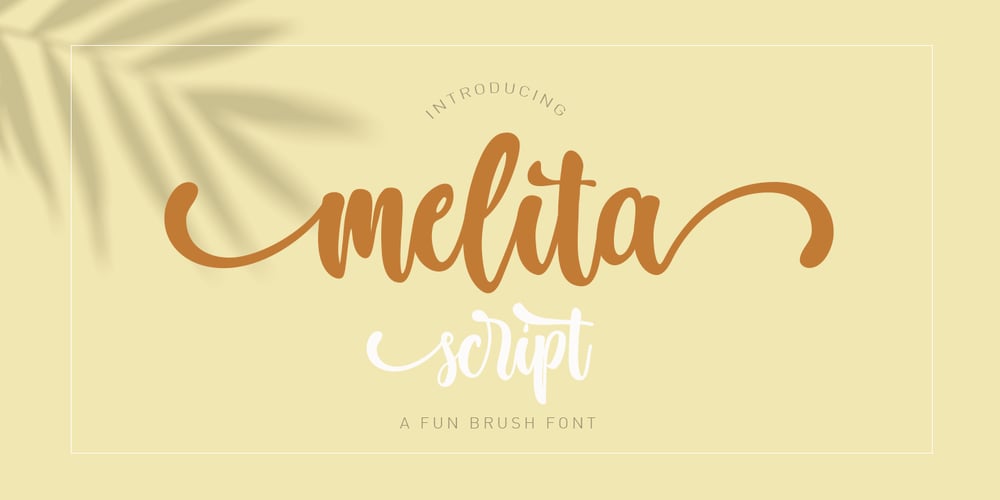
Melita Script Font Family was designed by Niza Fahmi and published by Fran Studio. Melita Script contains 1 styles and family package options. Melita Script is a hand-brushed modern calligraphy script font, created with both pen & brush. It includes a dancing baseline with separate swashes that can be applied to the beginning and ends of all lowercase. Melita Script includes several ligatures, alternates and international support for most western languages. Perfect for Branding, Logos, Greeting Cards, Wedding Stationery and so much more! To activate OpenType Stylistic alternative, you need a program that supports OpenType features such as Adobe Illustrator CS, Adobe Indesign and CorelDraw X6-X7, Microsoft Word 2010 or later. How to access all of the alternate characters, using the Windows Character Map to Photoshop: https://www.youtube.com/watch?v=Go9vacoYmBw How to access all of the alternate character using Adobe Illustrator: http://youtu.be/iptSFA7feQ0nn How to use stylistic sets font in Microsoft Word 2010 or later versions: https://youtu.be/x1A_ilsBsGs Melita script PUA encoded with Unicode, which allows full access to all the extra characters without having to design special software. Mac users can use Font Book, and Windows users can use the Character Map to view and copy one additional character to paste into your text editor / favorite applications.